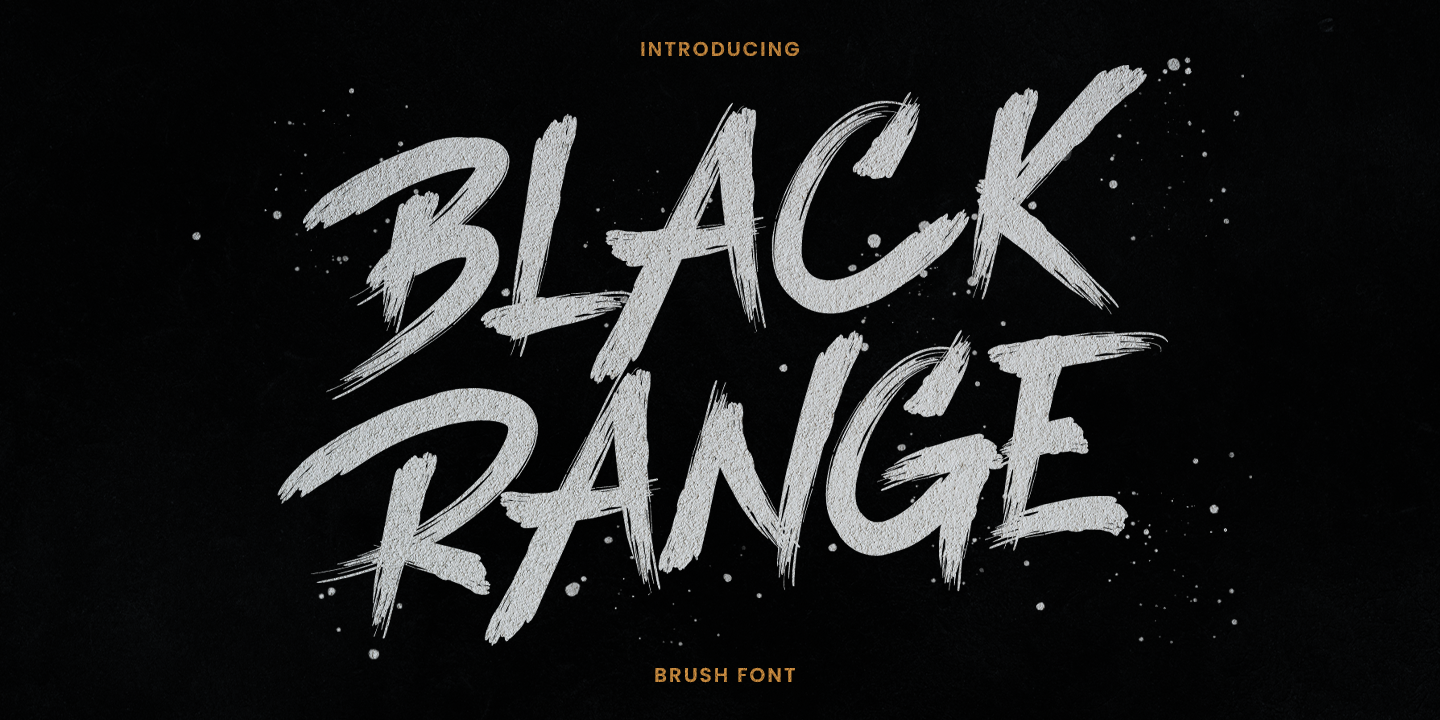
Black Range Font is perfect for rugged outdoor gear branding, mountain expedition companies, wilderness survival training, ranch and cattle farm identity, hunting and fishing outfitters, western-themed restaurants, adventure tourism campaigns, outdoor equipment packaging, and authentic frontier social media content. This powerful typeface brings mountain strength and frontier authenticity to both digital and print design applications.
Black Range Font is exciting because it embodies the untamed spirit and rugged durability of mountain wilderness, making it an exceptional choice for designers who want to convey frontier toughness with authentic outdoor appeal. Its bold letterforms and mountainous character provide the perfect combination of wilderness elegance and frontier functionality, ensuring your projects communicate strength, adventure, and outdoor excellence that resonates with audiences seeking genuine wilderness experiences and frontier authenticity.
The Black Range Font family includes rugged weight variations and mountain elements, featuring regular and bold weights with complementary weathered styles, frontier-inspired ligatures, and wilderness decorative flourishes. Each style maintains consistent outdoor aesthetics while offering flexibility for different adventure applications, allowing designers to create powerful visual systems that reflect frontier values and mountain sophistication.
Whether you're designing for outdoor brands, adventure companies, or wilderness projects, Black Range Font Free Download delivers authentic frontier appeal and rugged sophistication that connects with audiences seeking genuine outdoor experiences and mountain adventure excellence. This premium typeface offers designers the wilderness strength and frontier elegance needed to create designs that communicate outdoor authenticity, mountain durability, and frontier excellence effectively. The font's rugged character makes it perfect for outdoor branding, adventure campaigns, and wilderness applications where authentic frontier credibility is essential. Download Black Range Font today and explore your creative projects with genuine mountain sophistication and frontier typography excellence that defines outdoor design standards.